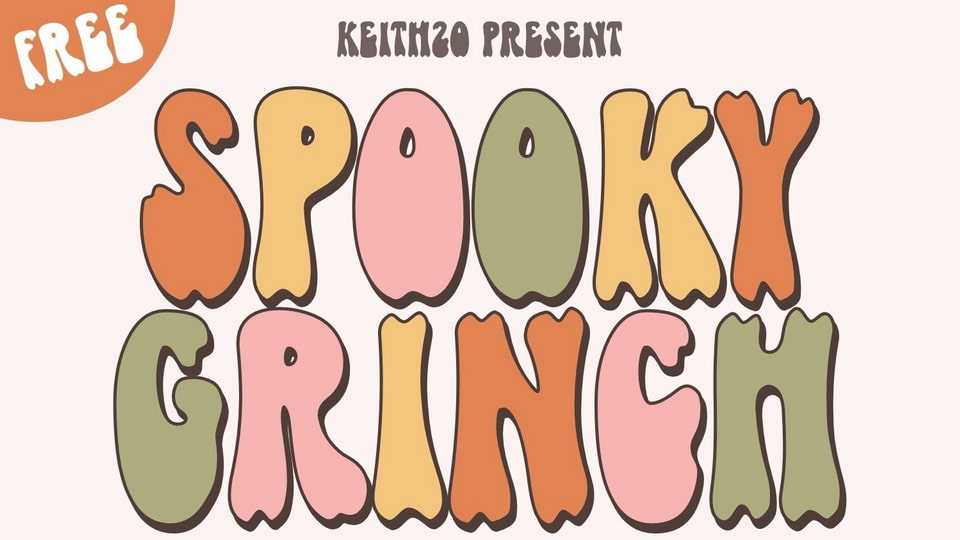
Download Spooky Grinch font, a hand crafted typeface that captures the essence of Halloween in a font extrapolated from both retro and groovy design aesthetics.
Designer: Keithzo (7NTypes)